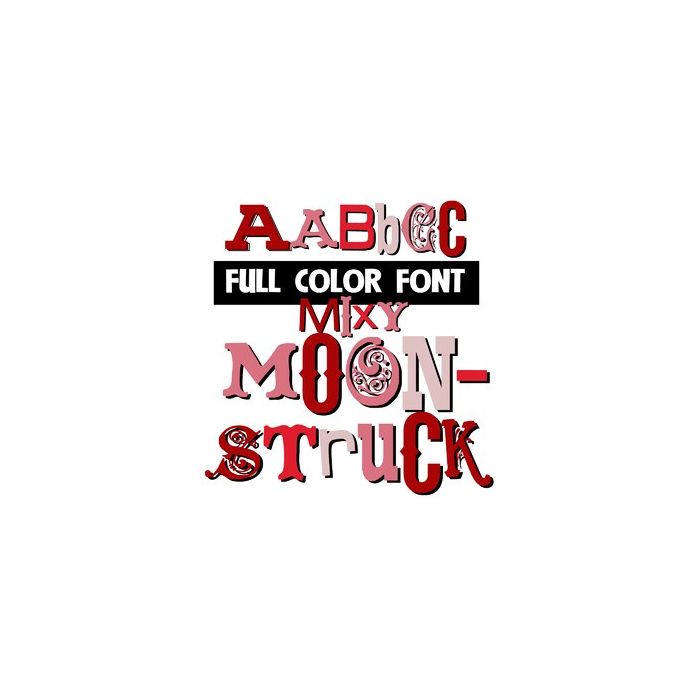
This full-color font features a Valentines-color palette and a mix of font types. There is a an alt version w/ secondary colors available through your system's or Silhouette's glyph map.